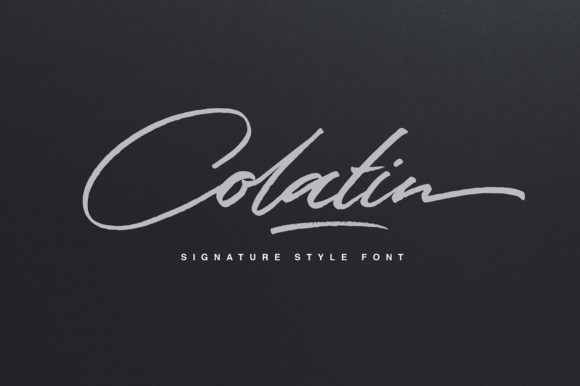
Colatin Script Font: A Handmade Masterpiece with a Cool Twist
In the world of typography, few fonts manage to capture the essence of elegance and charm as effortlessly as the Colatin Script Font. This beautifully crafted script font is not just a typeface; it’s an experience. With its unique blend of traditional script elements and a modern twist, Colatin is perfect for designers looking to add a touch of sophistication and personality to their projects. In this article, we’ll dive deep into what makes Colatin a standout choice for creatives and explore how its effortless charm can elevate your design work.
What is Colatin Script Font?
Colatin is a carefully handmade script font that boasts a cool, laid-back vibe. Unlike many digital fonts that can feel stiff or overly uniform, Colatin brings a refreshing sense of organic charm to the table. Its design is rooted in traditional script typography but infused with modern elements that give it a distinct edge. This blend of old and new makes Colatin incredibly versatile, suitable for a wide range of design applications, from branding and packaging to web design and personal projects.
Key Design Features of Colatin Script
So, what sets Colatin apart from other script fonts? Here are some of its key design features:
- Handmade Aesthetic: Colatin’s handcrafted nature gives it a unique, one-of-a-kind feel. Each letter is carefully designed to mimic the natural flow and imperfections of handwriting, creating a warm and inviting look.
- Cool Twist: The “cool twist” in Colatin refers to its modern, edgy undertones. This isn’t your grandma’s script font; Colatin has a laid-back, contemporary vibe that’s perfect for designs that need a bit of attitude.
- Elegant Ligatures: The font includes elegant ligatures that add a touch of sophistication to your text. These ligatures help create a seamless, flowing look that’s ideal for headings, quotes, and other highlighted text.
- Versatile and Readable: Despite its decorative nature, Colatin remains highly readable, even at smaller sizes. This makes it a practical choice for both print and digital media.
Uses and Applications of Colatin Script Font
Colatin’s versatility is one of its standout qualities. Here are some of the many ways you can use this beautiful script font:
- Branding and Logo Design: Create memorable and stylish logos that stand out from the crowd. Colatin’s unique charm can help your brand leave a lasting impression.
- Wedding and Event Invitations: Add a touch of elegance to your wedding invitations, party invites, or any other special occasion with Colatin’s flowing script.
- Packaging Design: Whether you’re designing labels, product packaging, or promotional materials, Colatin can add a sophisticated touch that elevates your design.
- Web Design: Use Colatin to create stunning website headers, blog posts, or social media graphics. Its readability and style make it perfect for digital content.
- Art and Illustration: Colatin can also be used as a creative element in illustrations, comics, or any artistic project that requires a personal touch.
Tips for Using Colatin Script Font
To get the most out of Colatin, here are some tips to keep in mind:
- Pair with Complementary Fonts: For maximum impact, pair Colatin with clean, sans-serif fonts like Arial, Helvetica, or Open Sans. This contrast will help your design stand out.
- Use it for Headings and Highlights: While Colatin is beautiful, it’s best used sparingly. Use it for headings, quotes, or key messages to draw attention without overwhelming your content.
- Experiment with Colors: Colatin looks stunning in bold, contrasting colors. Don’t be afraid to experiment with different color combinations to find the perfect match for your design.
- Adjust Letter Spacing: For a more customized look, play around with the letter spacing. Tightening or loosening the spacing can dramatically change the feel of your text.
Colatin Script Font is more than just a typeface; it’s a design statement. Its handmade aesthetic, combined with a cool modern twist, makes it an excellent choice for designers looking to add a touch of elegance and charm to their work. Whether you’re creating branding materials, event invitations, or digital content, Colatin’s effortless charm can elevate your designs to new heights. So why not give Colatin a try and see how it can inspire your next creative project?